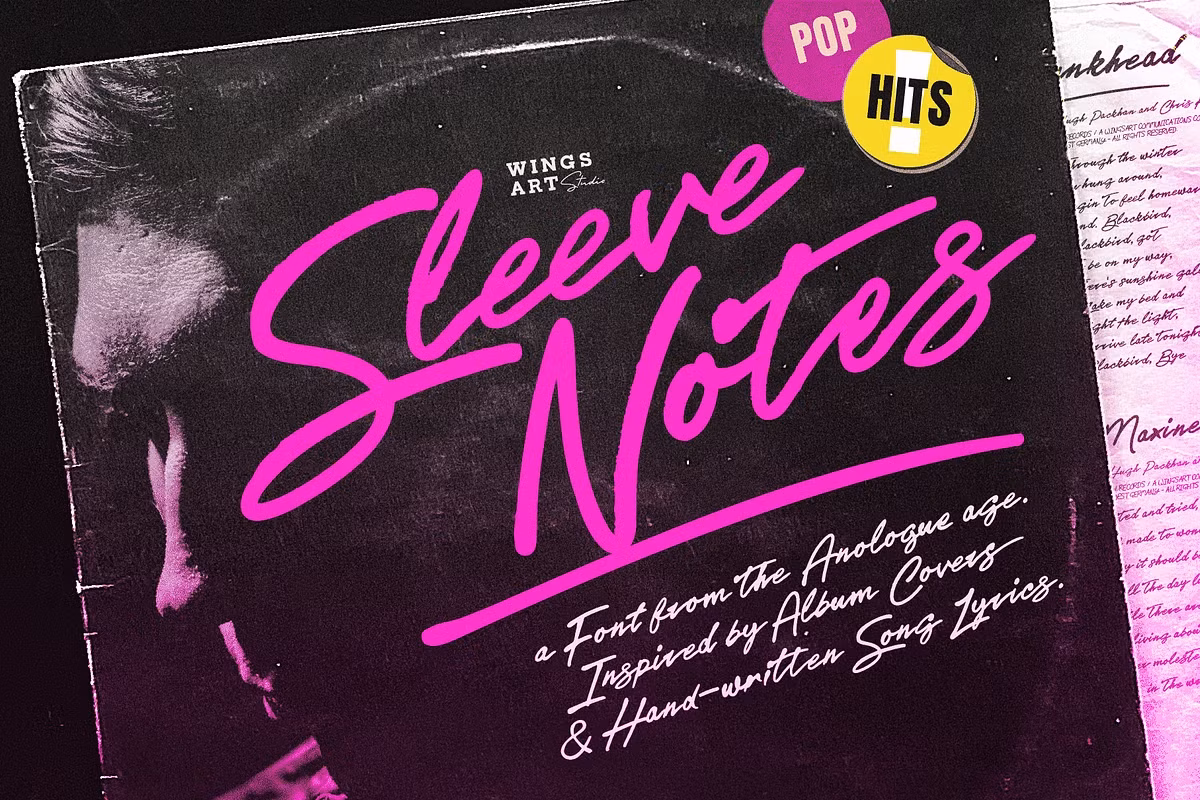
Sleeve Notes: Analogue Script Font Free Download
Sleeve Notes Analogue Script Font Free Download is a retro-inspired typeface that brings vintage charm and handwritten soul to your designs. With smooth curves and subtle imperfections, this font captures the essence of handwritten notes from vinyl sleeves, journals, and analog eras. It’s perfect for album artwork, branding, posters, packaging, and nostalgic design projects.
Whether you're designing for a music label, a boutique brand, or a retro-themed event, Sleeve Notes delivers authenticity with every stroke. It’s a script font that feels personal, warm, and full of character.